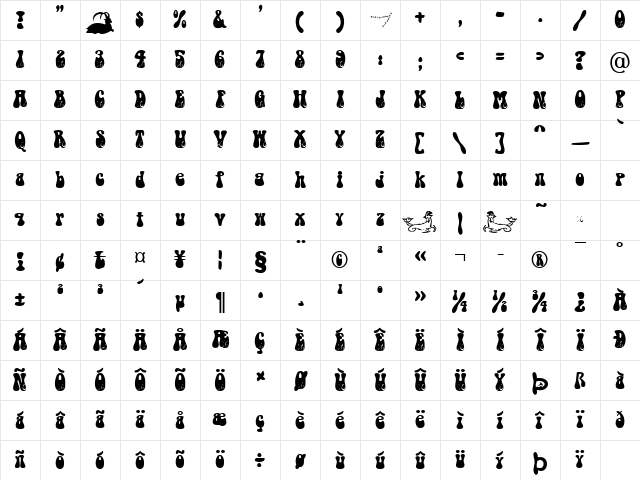
Capricorn Becker Normal
Design Context for Capricorn Becker
Capricorn Becker is a composed and adaptable typeface that performs quietly and consistently across a wide range of design contexts.
Pro Tip: Use Capricorn Becker in both headline and body roles to test its range before committing to a single application.